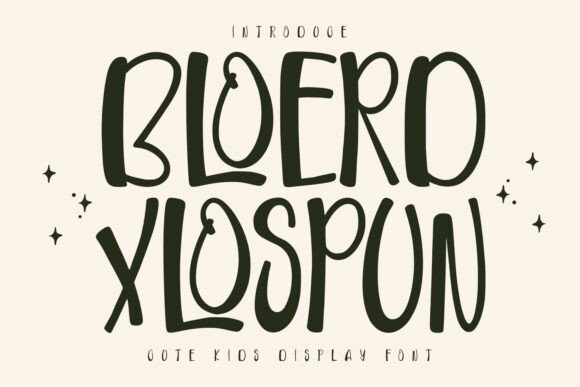
Bloerd Xlospun Font: A Magical Display Font for Kids
Bloero Xlospun is a delightful kids’ display font that adds a touch of magic to any design. With its tall, playful characters and subtle whimsical flourishes, this font is perfect for creating imaginative and fun designs for children. In this article, we’ll explore the features and uses of Bloerd Xlospun, and show you how to make the most of this charming font.
What is Bloerd Xlospun?
Bloerd Xlospun is a cute kids’ display font designed to bring a sense of wonder and enchantment to your designs. Its tall, playful characters and subtle whimsical flourishes make it perfect for creating eye-catching and engaging designs for children. Whether you’re designing a children’s book, birthday party invitation, or playful product packaging, Bloerd Xlospun is the perfect font to add a touch of magic to your design.
Features of Bloerd Xlospun
Bloerd Xlospun has several features that make it a standout font for kids’ designs. Some of its key features include:
- Tall, playful characters: Bloerd Xlospun’s characters are designed to be tall and playful, making them perfect for creating eye-catching headlines and titles.
- Subtle whimsical flourishes: The font features subtle whimsical flourishes that add a touch of magic to your designs.
- Cute and child-friendly: Bloerd Xlospun is designed to be cute and child-friendly, making it perfect for designs aimed at kids.
Uses of Bloerd Xlospun
Bloerd Xlospun is a versatile font that can be used for a variety of design projects, including:
- Children’s books: Bloerd Xlospun is perfect for designing children’s books, with its playful characters and whimsical flourishes bringing stories to life.
- Birthday party invitations: The font is great for designing birthday party invitations, adding a touch of magic and whimsy to your designs.
- Playful product packaging: Bloerd Xlospun can be used to create playful and eye-catching product packaging that stands out on store shelves.
- Kids’ websites and apps: The font is also great for designing kids’ websites and apps, with its playful characters and whimsical flourishes creating a fun and engaging user experience.
Tips for Using Bloerd Xlospun
Here are some tips for using Bloerd Xlospun in your designs:
- Use it for headlines and titles: Bloerd Xlospun is perfect for creating eye-catching headlines and titles that grab attention.
- Experiment with colors and textures: The font looks great with bright, bold colors and textures, so don’t be afraid to experiment and find the perfect combination for your design.
- Pair it with other fonts: Bloerd Xlospun can be paired with other fonts to create a unique and interesting design.
- Use it consistently: To create a cohesive design, use Bloerd Xlospun consistently throughout your project.
Bloerd Xlospun is a charming kids’ display font that’s perfect for adding a touch of magic to your designs. With its tall, playful characters and subtle whimsical flourishes, this font is sure to delight kids and parents alike. Whether you’re designing a children’s book, birthday party invitation, or playful product packaging, Bloerd Xlospun is the perfect font to bring imagination and fun into every design.
- What is Bloerd Xlospun?: Bloerd Xlospun is a cute kids’ display font with a magical twist, featuring tall, playful characters and subtle whimsical flourishes.
- What is Bloerd Xlospun used for?: Bloerd Xlospun is perfect for designing children’s books, birthday party invitations, playful product packaging, and more.